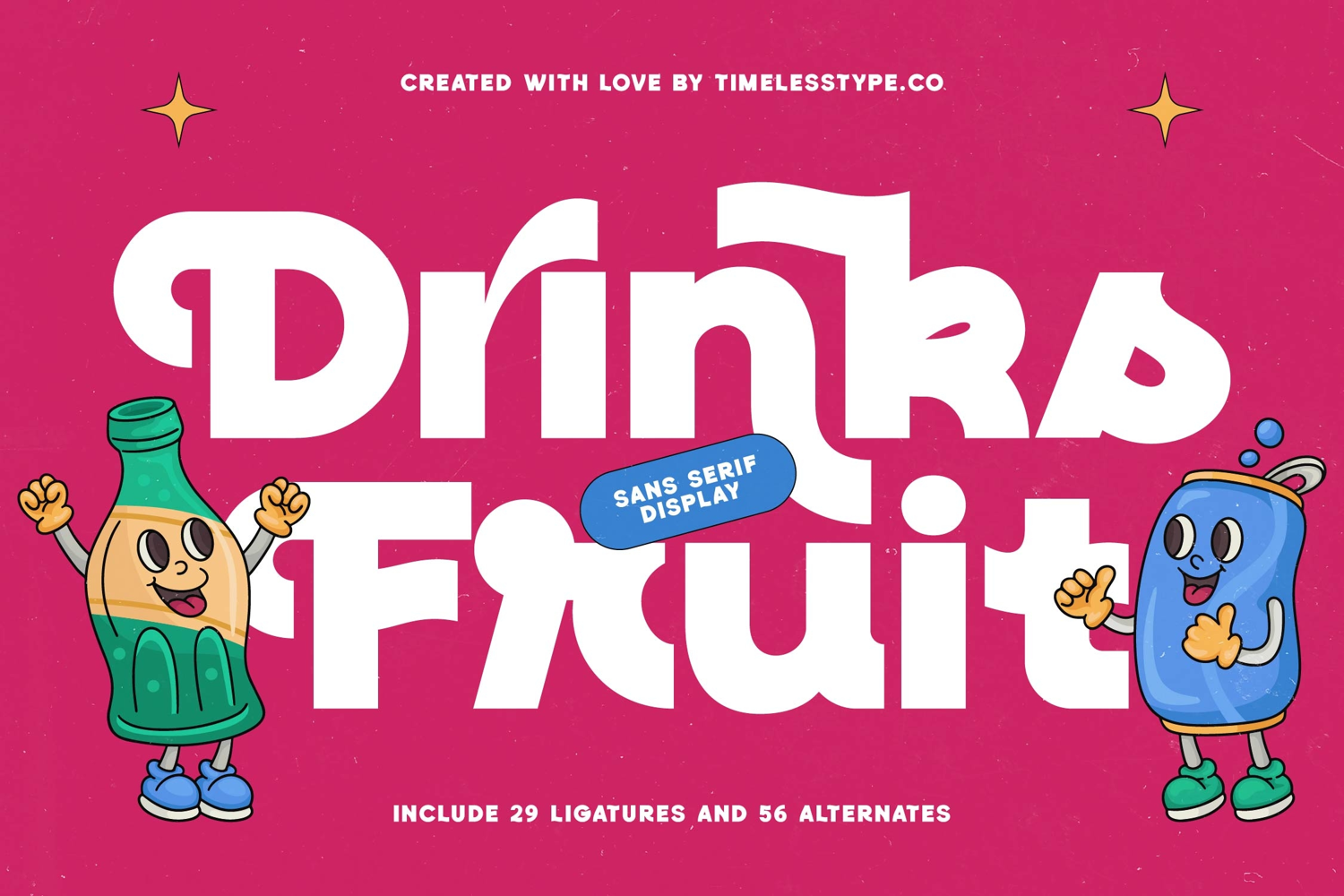
Drinks Fruit - Sans Serif Display
Drinks Fruit
Drinks Fruit Italic
Drinks Fruit - Sans Serif Display
Drinks Fruit is a sans serif display font that combines bold structure with playful personality, making it perfect for fun and energetic designs. With its chunky letterforms, rounded edges, and quirky alternates, this typeface delivers a sense of freshness and joy, ideal for projects that want to stand out with both strength and charm. Featuring 29 ligatures and 56 alternates, Drinks Fruit allows designers to experiment with endless creative variations, ensuring typography always feels unique and dynamic.
This font excels in headline typography, where its bold forms and vibrant energy make an immediate impact on posters, banners, and editorial covers. In branding and logo design, Drinks Fruit communicates approachability and creativity, making it an excellent choice for food brands, beverage packaging, children’s products, and lifestyle businesses that aim for a friendly, memorable identity.